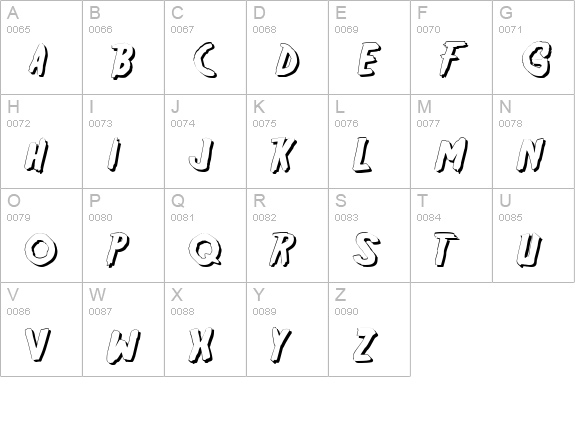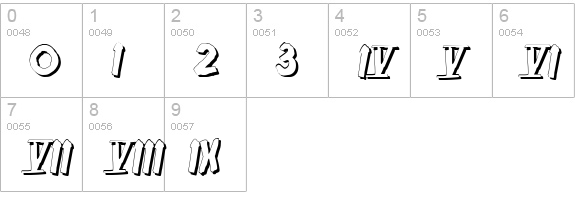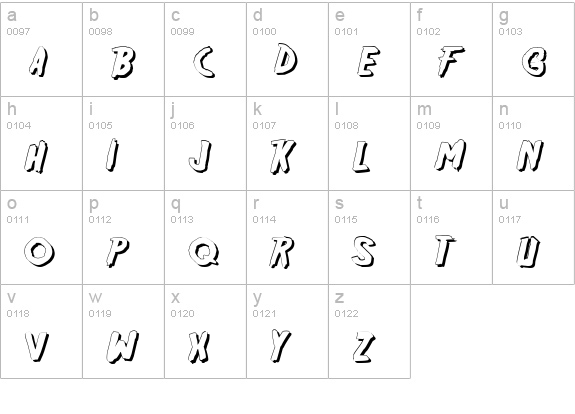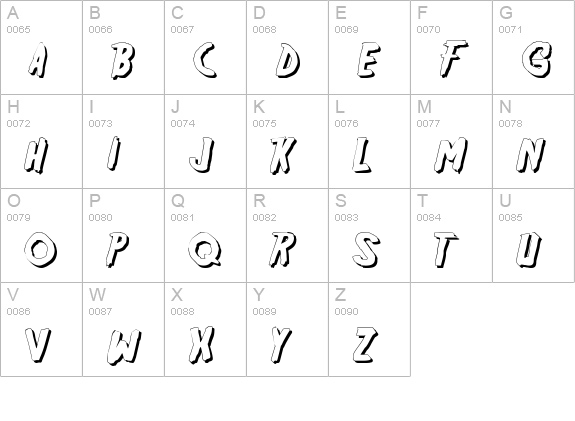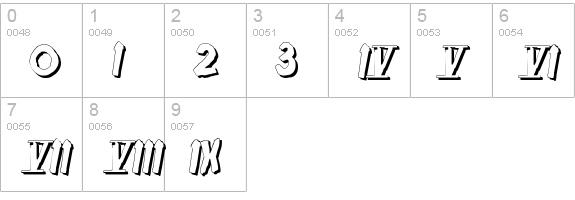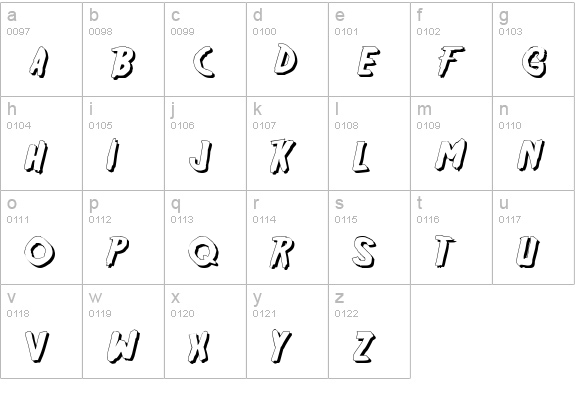
Friday13SH Font Details
Friday13SH is a striking and edgy font that is sure to make a statement in any design project. With its bold and angular letterforms, this font exudes a sense of mystery and intrigue. Perfect for adding a touch of darkness to your designs, Friday13SH is ideal for horror-themed projects, gothic designs, or any design that needs a touch of the macabre. But what makes Friday13SH even more enticing is the fact that it is completely free! That's right, you can download this captivating font without spending a dime. Thanks to its availability on FontsMarket.com, Friday13SH is freely accessible to anyone who wants to add a touch of dark elegance to their creative endeavors. Imagine the possibilities with Friday13SH. Whether you're designing a chilling movie poster, creating an eerie book cover, or crafting a spooky logo, this font will undoubtedly leave a lasting impression. Its unique and distinctive style will ensure that your design stands out from the crowd and captures the attention of your audience. So don't miss out on this incredible opportunity to enhance your designs with Friday13SH. Get your hands on this free font today at FontsMarket.com and let your creativity run wild. Unleash the dark side of your designs with Friday13SH and watch as your projects come to life in a whole new way.